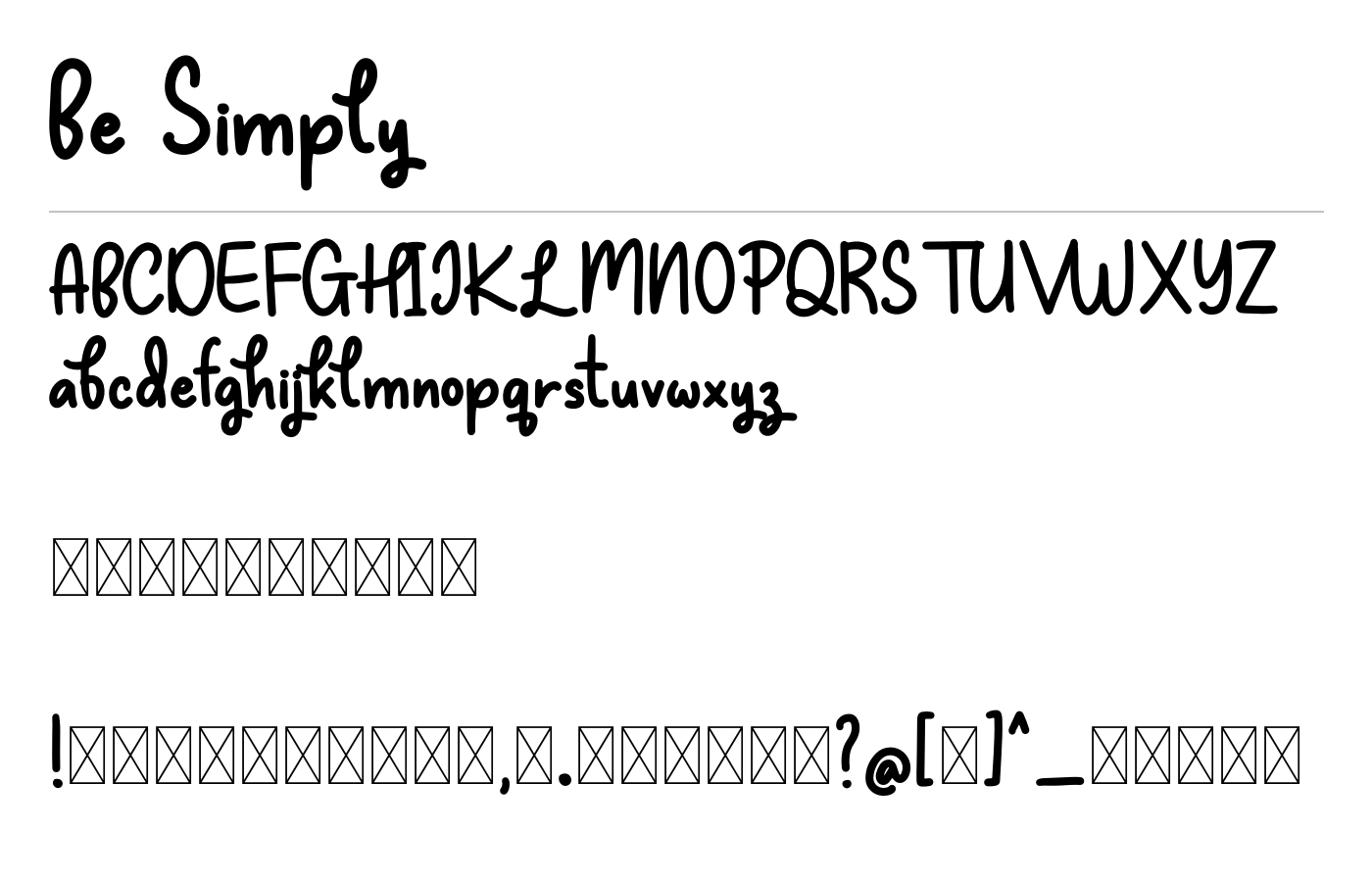
Be Simply Font is a playful and informal handwritten sans serif with a friendly, approachable personality. Its rounded, somewhat uneven strokes give it a casual charm, making it ideal for projects that want to convey warmth and creativity, such as children's books, casual branding, and personal invitations. This font works best in headlines or short text where a relaxed, personal touch is desired.
Be Simply Font